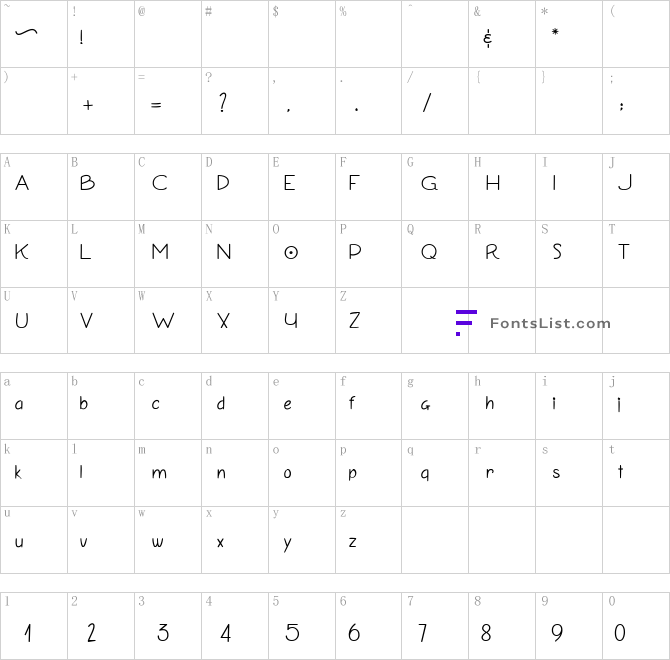
- Font Name:Adventures Overlanders
- Subfamily:Maelle.K: Adventures & Overlanders: 2015
AdventuresOverlanders.ttf is a very beautiful artistic font, AdventuresOverlanders.ttf is widely used in the design and printing of various books and pictures,AdventuresOverlanders.ttf has a strong visual impact,AdventuresOverlanders.ttf is a commonly used font in newspapers, magazines and books, and is used in posters, e-commerce Poster design, store design, logo design, font design and other fields.AdventuresOverlanders.